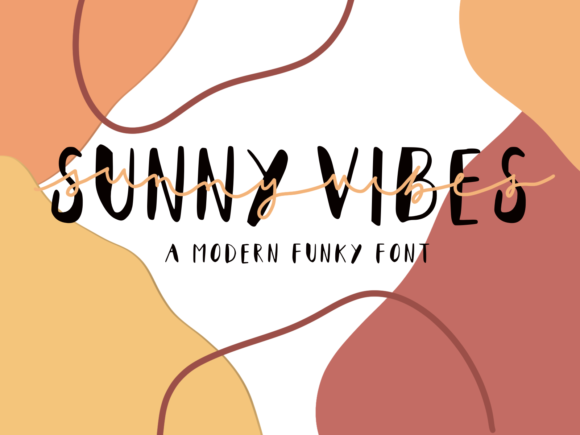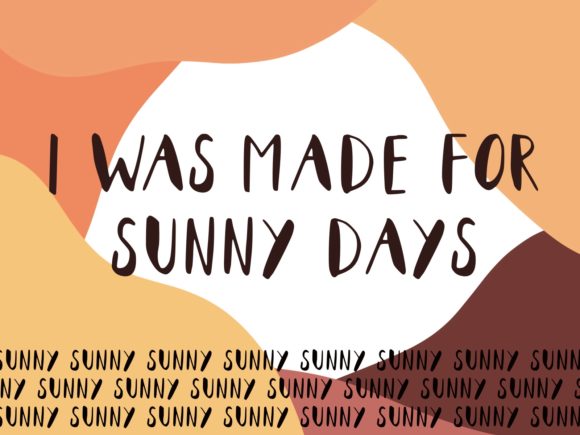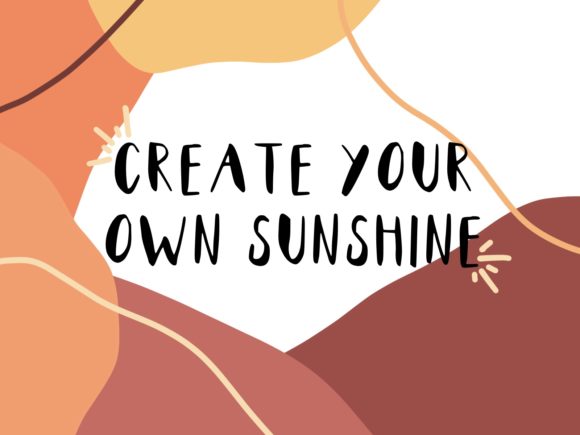
Sunny Vibes Font
About Sunny Vibes Font
Sunny Vibes is a funky, playful duo font which is perfect for all uses. With its contemporary look and its delicate nature, it is the best choice for graphic designs. Add it to your creations and make them come alive!